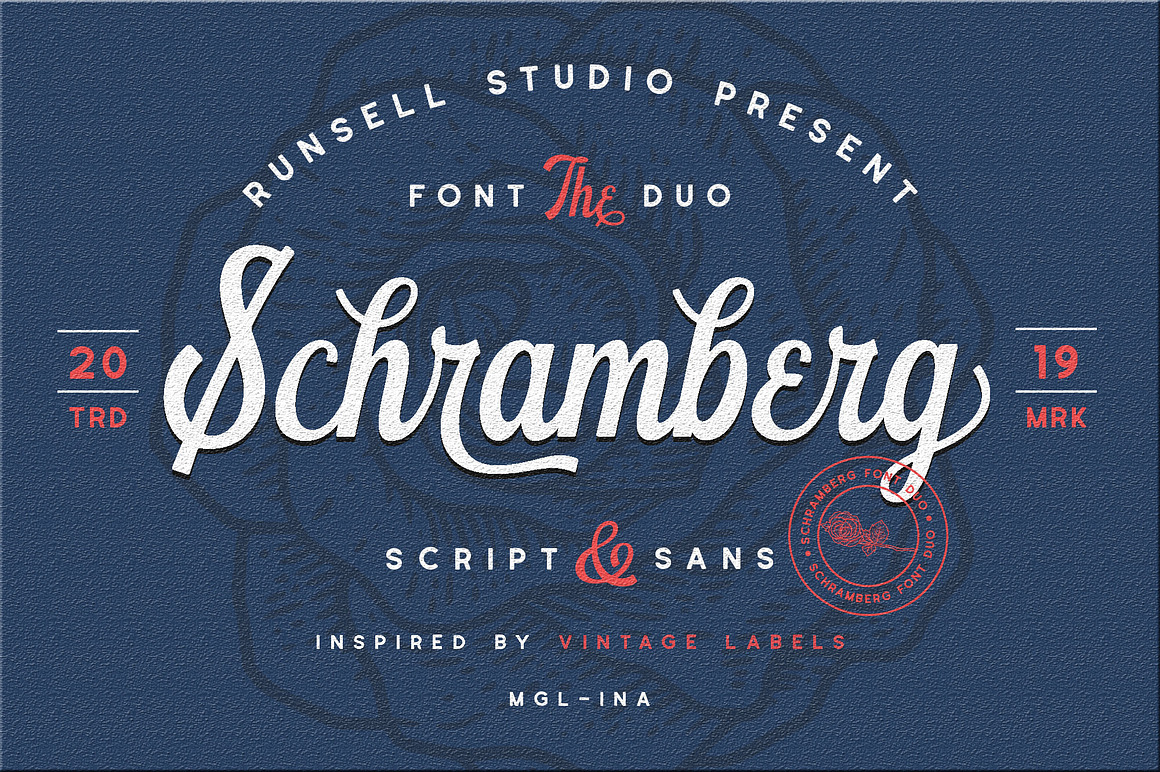
Schramberg Font Duo + Logo Template
Schramberg Font Duo is perfect for German brewery branding, Alpine tourism marketing, traditional German restaurants, Oktoberfest campaigns, Black Forest products, heritage craftsmanship, Germanic cultural events, traditional clock making, artisanal food packaging, and authentic Bavarian designs.
What makes Schramberg Font Duo exciting is its Germanic craftsmanship that embodies the precision of German engineering and Alpine heritage through authentically crafted letterforms. This distinguished font pair combines traditional German typography with contemporary functionality, creating a personality that communicates quality, tradition, and genuine Germanic pride. The font duo's German-inspired character and Alpine appeal make it perfect for brands seeking to evoke the magnificent landscapes of the Black Forest and the sophisticated charm of traditional German craftsmanship.
The Schramberg Font Duo family includes Script Regular, Script Bold, Sans Regular, Sans Bold, Traditional, Alpine, Heritage, and Craft variants. Each style maintains the font's Germanic character while providing comprehensive typographic flexibility for traditional brand identity systems and Alpine design applications across diverse cultural platforms.
Experience Germanic excellence with this exceptional traditional typeface duo that defines Alpine sophistication through authentically crafted letterforms. Schramberg Font Duo Free Download provides heritage brands with access to premium German typography that communicates tradition, quality, and authentic Germanic charm across all cultural projects and heritage communications.
Whether you're developing German cultural identities, creating Alpine tourism materials, designing traditional craft branding, or building Germanic heritage campaigns, Schramberg Font Duo delivers unmatched Germanic appeal and Alpine sophistication. Its traditional presence makes it perfect for German breweries, Alpine resorts, traditional craftsmen, and cultural organizations seeking authentic Germanic representation.
The font duo's precise proportions and heritage details create an inspiring reading experience that transports audiences to the charming villages of the Black Forest and traditional German workshops. Each letterform has been carefully crafted to preserve German typographic tradition while maintaining excellent readability across modern heritage applications.
This versatile typeface pair excels in cultural environments, offering designers the authenticity needed for comprehensive Germanic brand communication strategies. The extensive character set includes German alternates, traditional ligatures, and Alpine symbols for heritage market positioning and cultural brand storytelling.
Transform your heritage projects with Schramberg Font Duo Free Download and experience how German typography can enhance cultural credibility and Alpine appeal. This remarkable typeface duo captures the essence of Germanic tradition while providing the versatility required for modern heritage brand communication.
Embrace the power of traditional design that celebrates German culture and authentic Alpine craftsmanship.